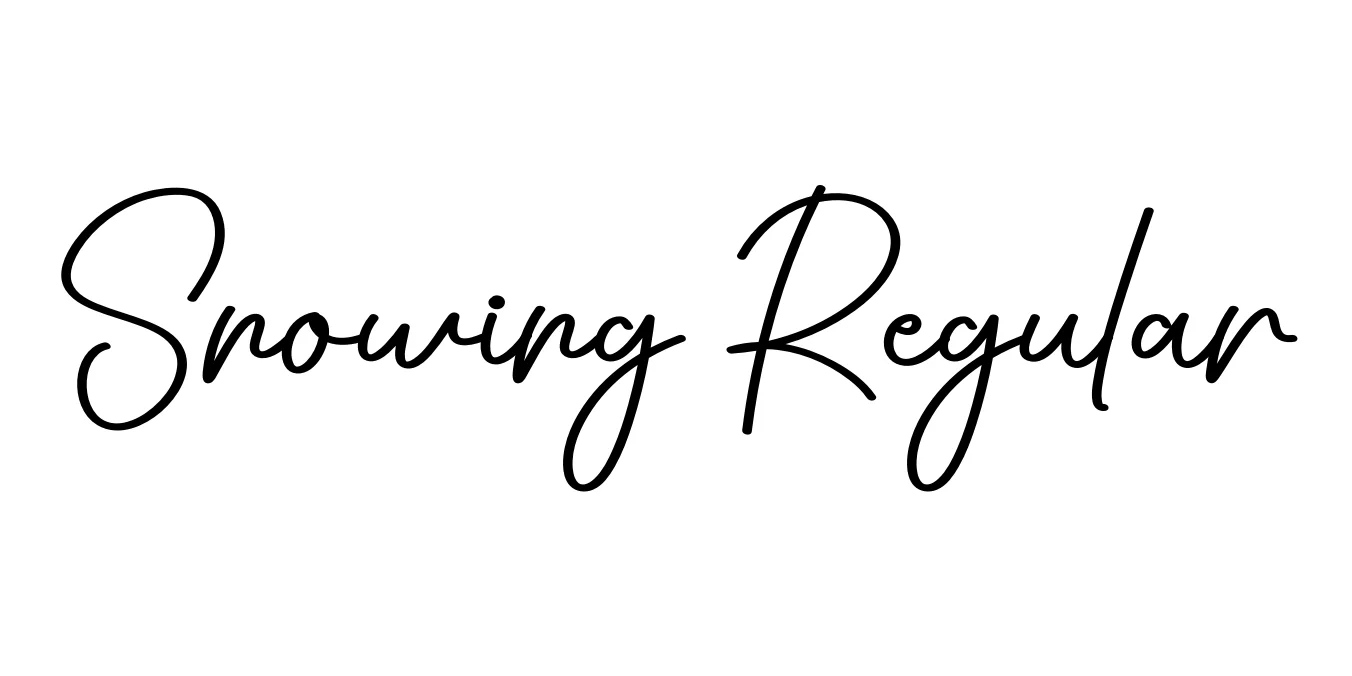
Snowing Regular
Designed by Letterhend Studio
| Font Name | Snowing |
| Category | Handwritten Script |
| Designer | Letterhend Studio |
| Similar Fonts | Winter Song, Snowflake Script, Christmas Morning |
Snowing Regular is a charming and whimsical display font designed to capture the cozy essence of winter and holiday cheer. Its fluid, hand-drawn strokes and soft curves evoke a sense of warmth and festive elegance, making it an ideal choice for seasonal projects and creative invitations.
Developed with a focus on legibility and personality, this font features a variety of decorative flourishes that add a personalized, handcrafted touch to any layout. Whether used for greeting cards, digital branding, or holiday marketing, Snowing Regular remains a versatile tool for designers looking to inject a bit of winter magic into their creative work.
Snowing Regular Best Uses
Perfect for heartfelt holiday messages and invitations.
Great for creating eye-catching seasonal Instagram posts and stories.
Ideal for boutique brands looking for a soft, approachable winter aesthetic.
Enhances the unboxing experience for winter-themed products and gift sets.